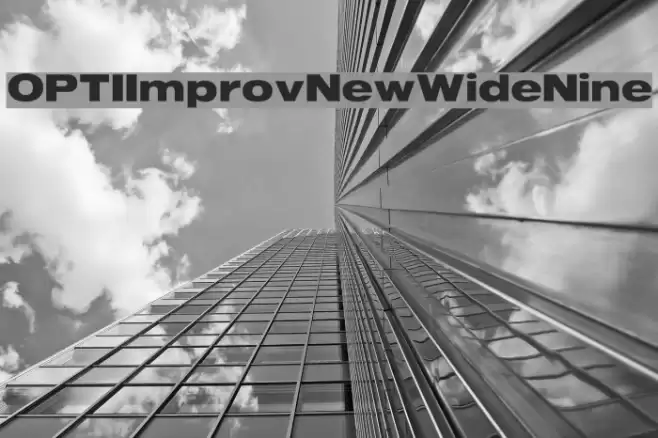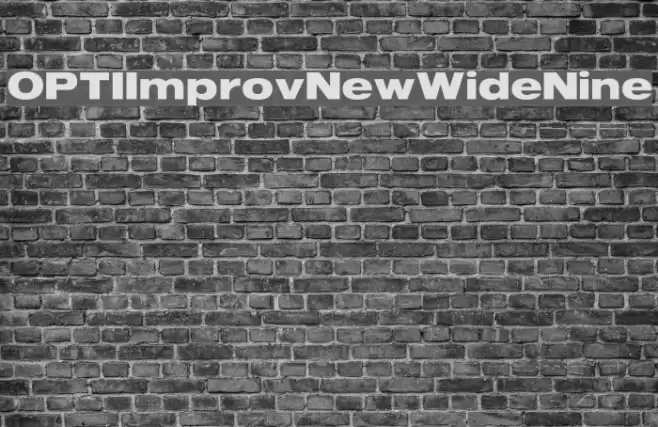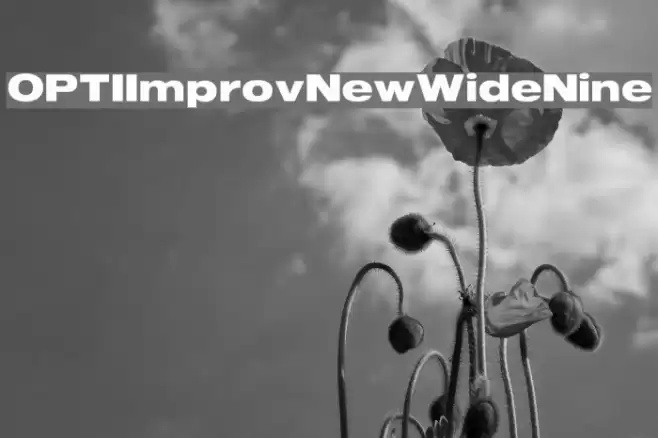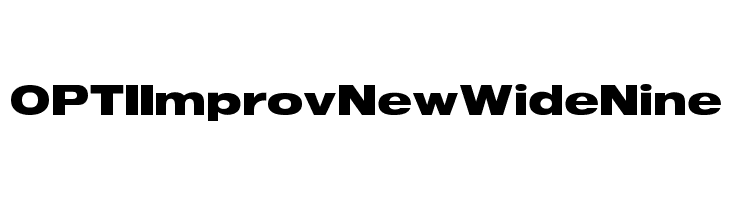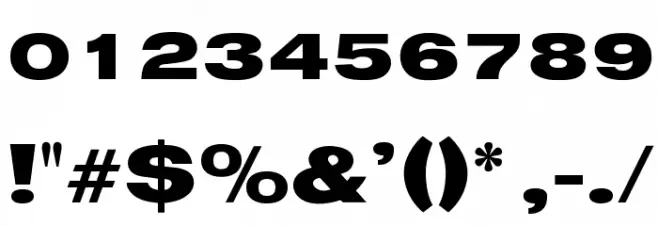
OPTIImprovNewWideNine Font
OPTIImprovNewWideNine Description
This font exhibits a bold and impactful presence with its thick, uniform strokes and wide letterforms. The uppercase and lowercase characters maintain a consistent weight, contributing to a strong visual impact. The numerals and special characters are designed with the same boldness, ensuring readability and emphasis. The overall design is clean and modern, making it suitable for attention-grabbing headlines and titles. The spacing between characters is tight, which enhances its compact and robust appearance. This font is ideal for projects that require a strong and assertive typographic statement.
A bold, wide font with strong, uniform strokes and tight spacing, perfect for impactful headlines from Uncategorized fonts.
- Proposed Projects: Ideal for branding, advertising, posters, and any design requiring a bold statement.
- Width: Expanded
- Character Spacing: Tight